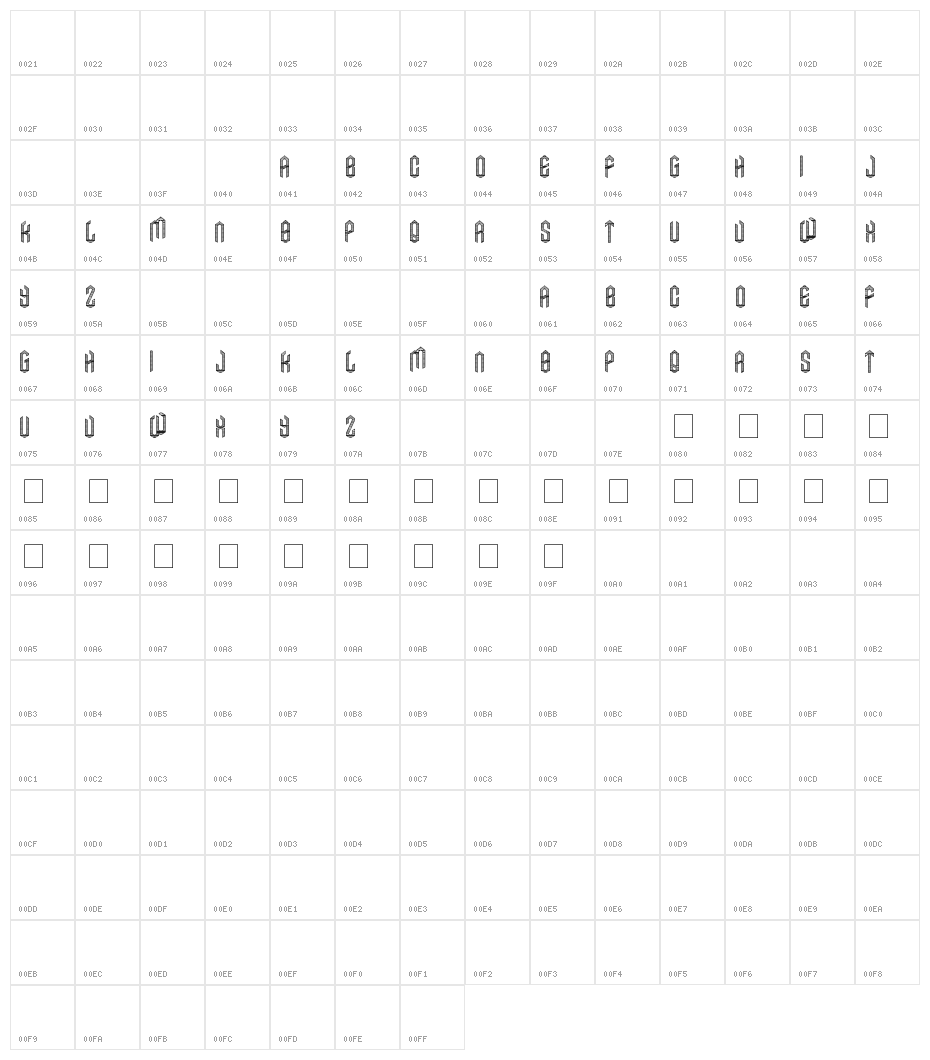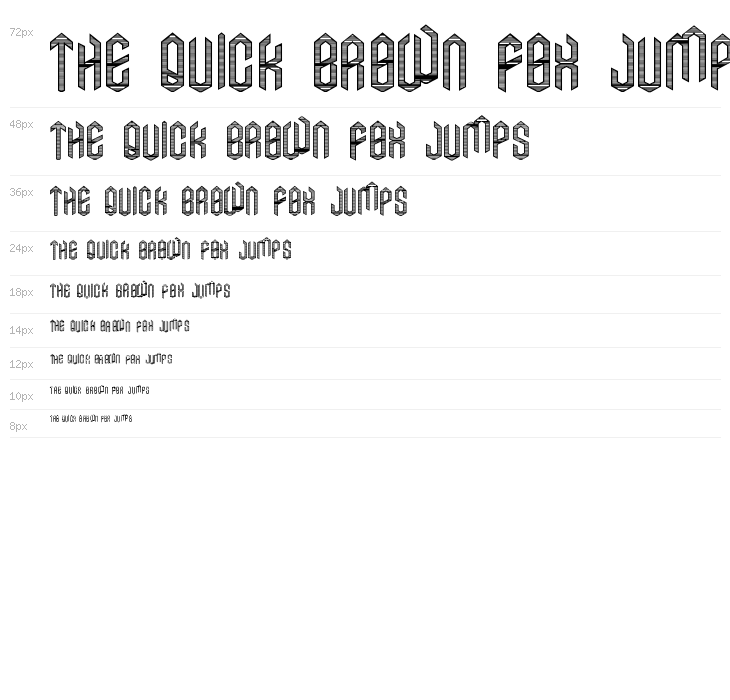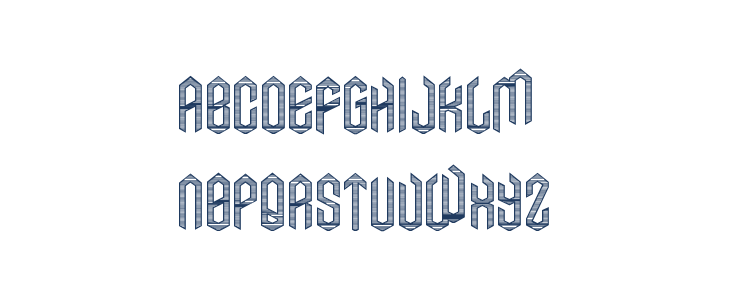
Axe Fill Font
Axe Fill Description
This font features a bold, three-dimensional design with a distinct geometric pattern. Each character is constructed with parallel lines that create a sense of depth and structure, reminiscent of architectural elements. The uppercase letters are uniform in height and width, giving a cohesive and balanced appearance. The font's unique style makes it stand out, with its intricate detailing and strong visual impact. It is ideal for projects that require a striking and modern aesthetic, such as branding, posters, and headlines. The font's design is both decorative and functional, offering versatility in various creative applications.
| Proposed Projects | Ideal for branding, posters, headlines, and any project needing a modern, striking aesthetic. |